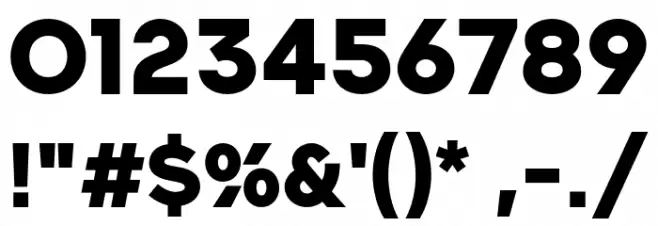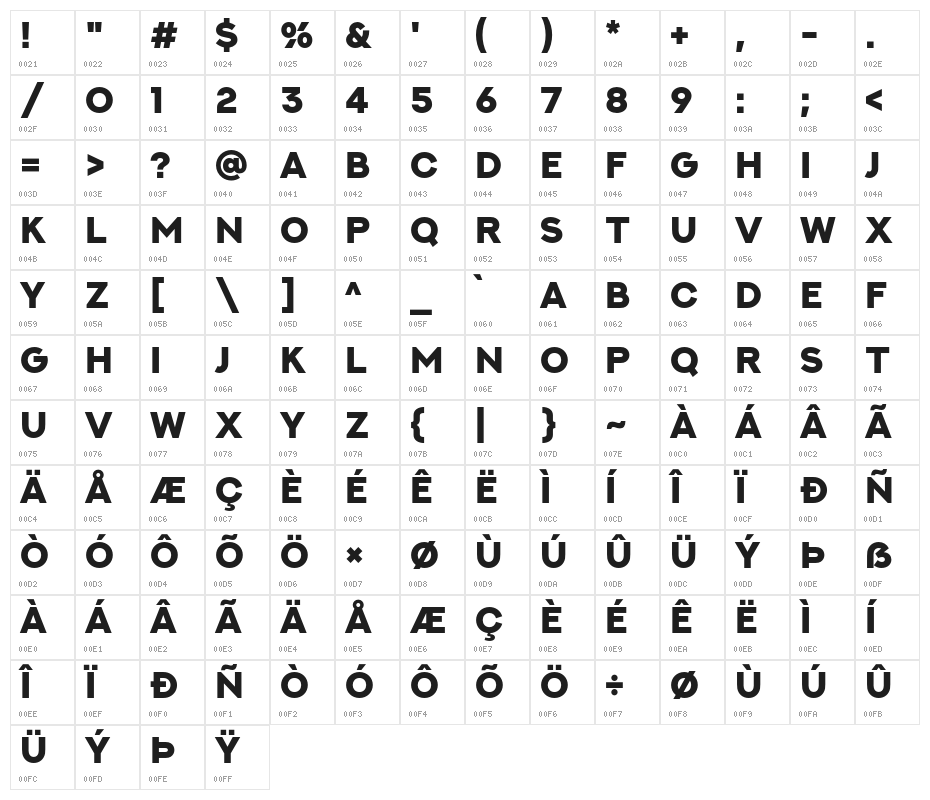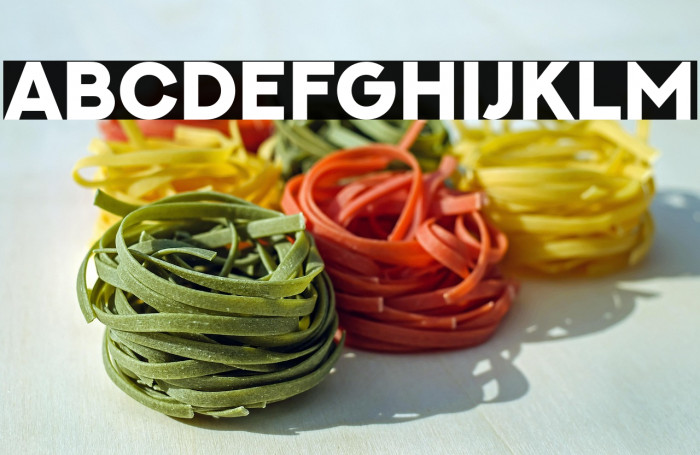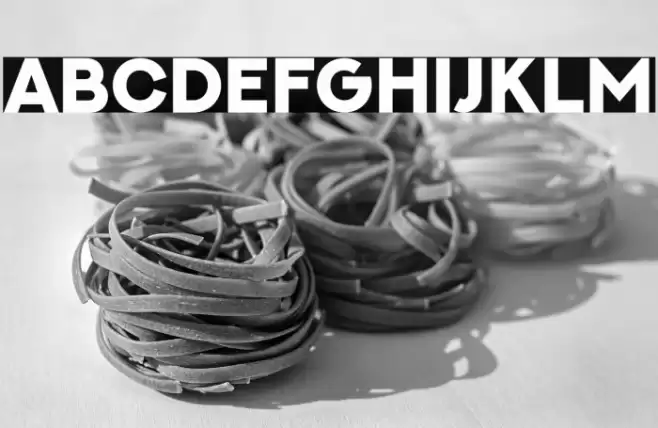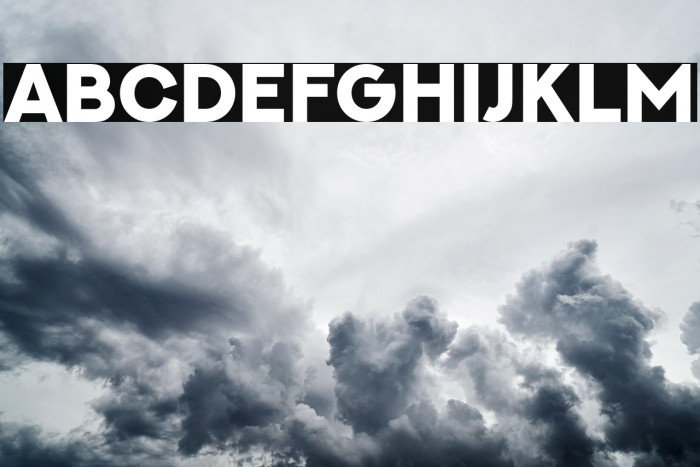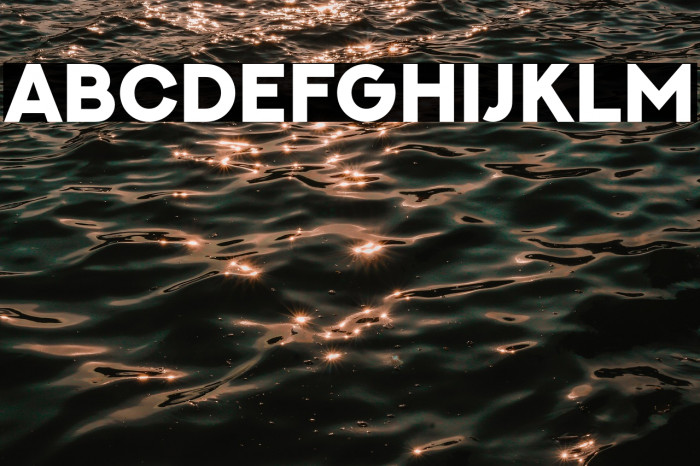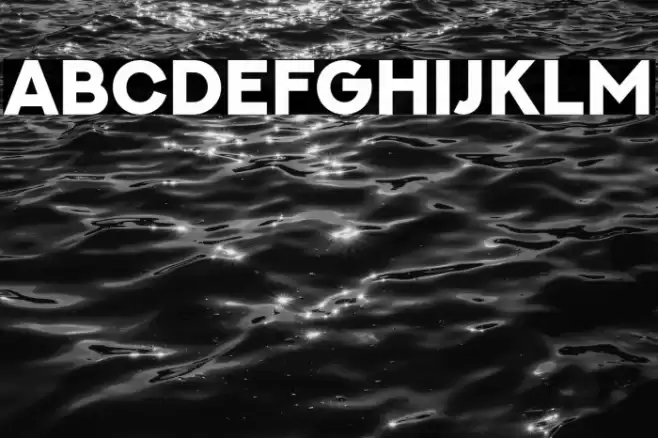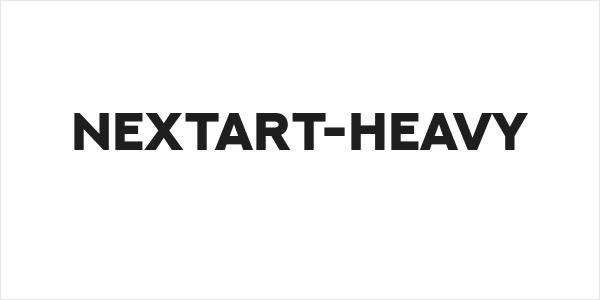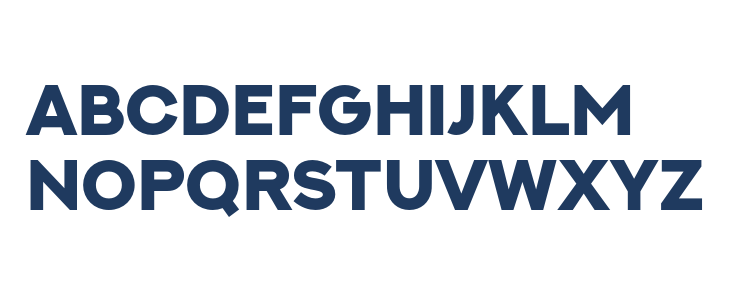
NEXTART-Heavy Font
NEXTART-Heavy Description
This font features bold, geometric letterforms with a strong presence. The characters are uniform in width, contributing to a clean and modern aesthetic. The uppercase letters are particularly striking, with a consistent stroke weight that enhances readability. The numerals are equally bold, maintaining the font's overall robust appearance. Special characters are designed with the same attention to detail, ensuring they integrate seamlessly with the rest of the typeface. This font's simplicity and strength make it versatile for various design applications.